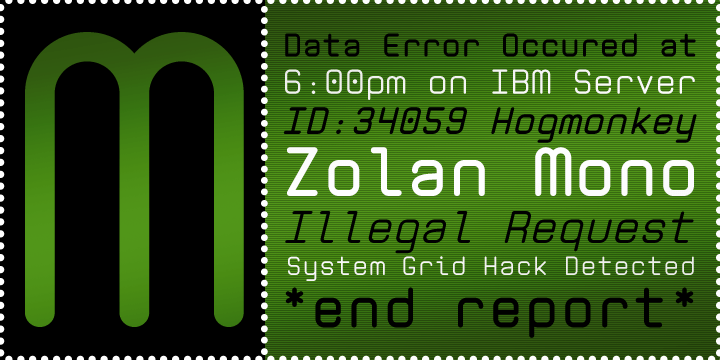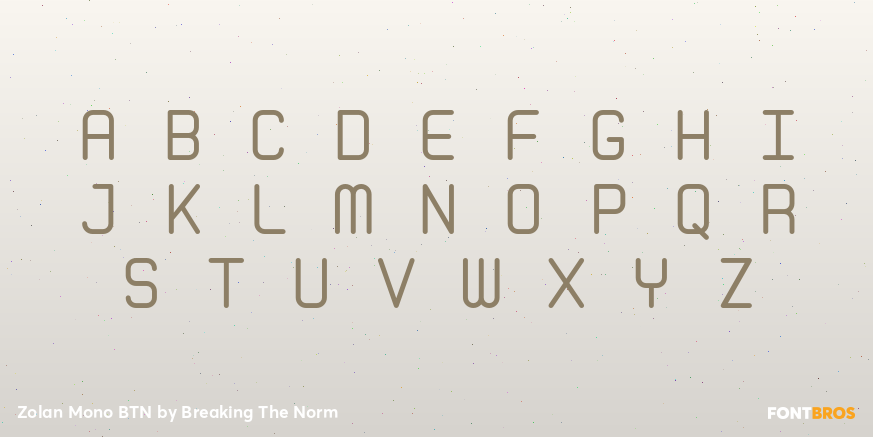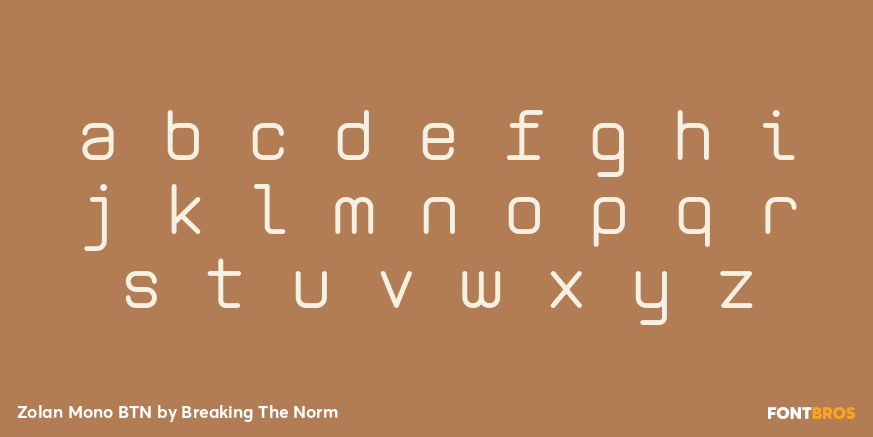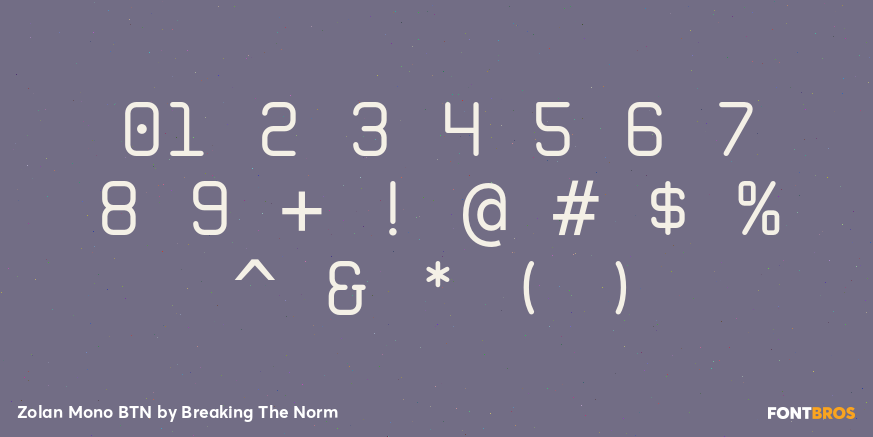
Zolan Mono BTN
Font Family by Breaking The Norm
Zolan Mono BTN is a clean monospaced family that extends the modern, geometric spirit of the Zolano type system into a fixed-width design. While it carries the clarity and precision expected of a monospace, its smooth contemporary construction gives it appeal well beyond developer-focused use alone. Zolan Mono BTN works well for tech branding, interface design, gaming graphics, packaging, editorial layouts, labels, terminals, and modern display work that benefits from a structured mechanical rhythm. With Regular, Bold, Oblique, and Bold Oblique styles, it offers a crisp and versatile monospaced voice with a fresh, modern character.